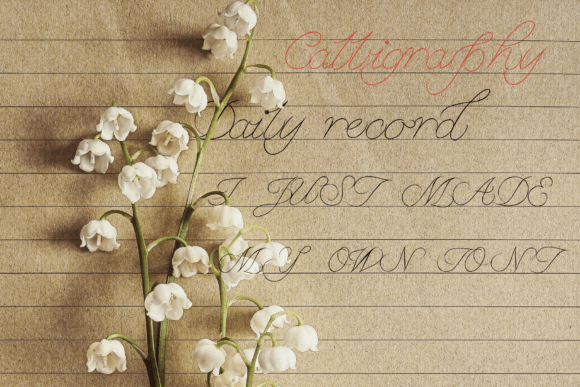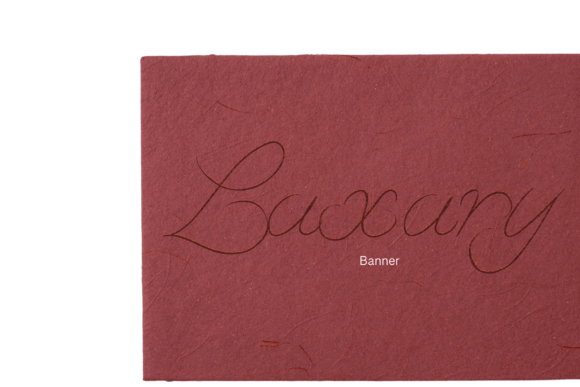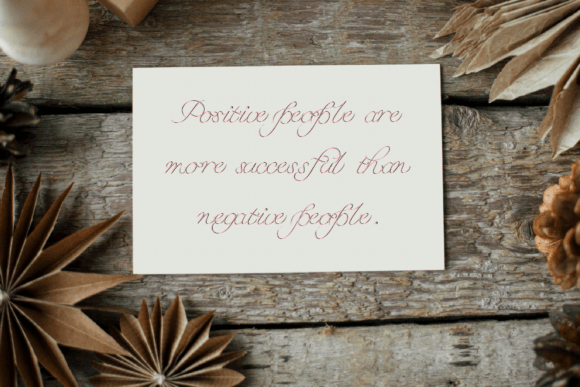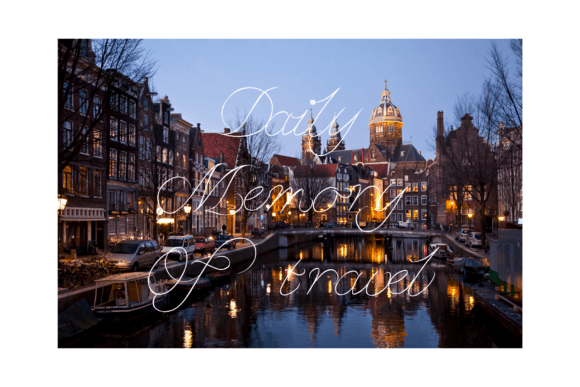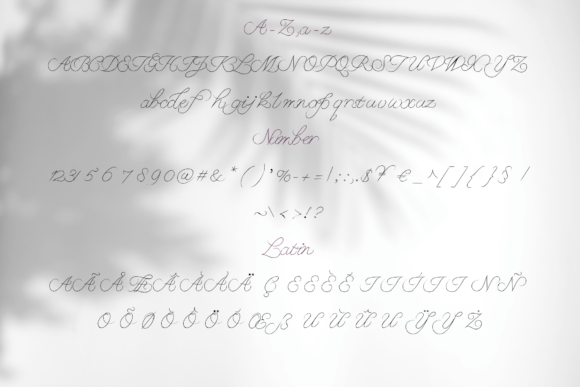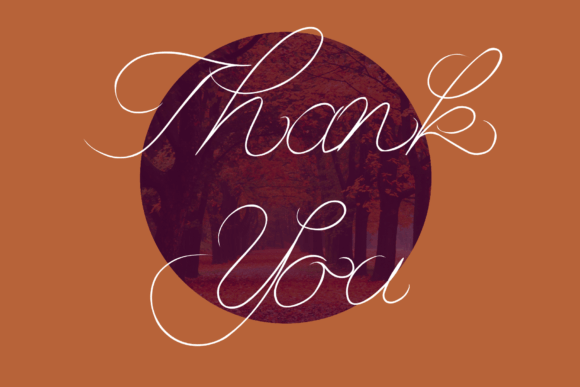
Discover the Charm of Hand Written Fonts: Elevate Your Designs with Elegance
In the world of typography, few styles evoke as much warmth and personality as the hand written font. Among these, Handwritten stands out as a flowing script that brings an elegant touch to any project. Described by its incredibly distinct and timeless style, this font is perfect for designers and crafters looking to infuse their creations with a personal and sophisticated flair.
The Allure of Hand Written Fonts
Hand written fonts, by their very nature, carry a unique charm that is hard to replicate with digital fonts. They bring a level of human touch and authenticity to a design, making it more relatable and engaging. Whether it’s a wedding invitation, a brand logo, or a decorative piece, a well-chosen hand written font can elevate the design from ordinary to extraordinary.
Introducing Handwritten: A Font of Elegance
Handwritten is not just any hand written font. It’s a carefully crafted script that exudes elegance and sophistication. Its flowing lines and delicate curves make it perfect for projects that require a touch of class and refinement. From fashion and beauty brands to event planners and artists, this font can help establish a distinctive visual identity that sets you apart.
Key Features of Handwritten Font
- Distinctive Style: The font boasts an incredibly distinct style that is both memorable and visually appealing.
- Timeless Appeal: Unlike trends that fade over time, Handwritten has a timeless quality that ensures your designs remain relevant for years to come.
- Elegant Touch: It adds an elegant touch to any project, making it suitable for high-end brands and sophisticated designs.
- Versatility: Handwritten is versatile enough to be used in a variety of projects, from digital content to print materials.
Using Handwritten Font in Your Projects
The versatility of Handwritten makes it an excellent choice for a wide range of applications. Here are a few ideas to get you started:
- Branding and Logos: Create a lasting impression with a logo that combines simplicity with elegance.
- Wedding and Event Invitations: Add a touch of romance and sophistication to your invitations and save-the-date cards.
- Packaging: Stand out on store shelves with beautifully designed packaging that reflects your brand’s personality.
- Digital Content: Enhance your website, blog, or social media graphics with a font that captures attention and conveys your message with style.
Tips for Working with Handwritten Fonts
To make the most of Handwritten or any hand written font, consider the following tips:
- Pair with Contrasting Fonts: Combine Handwritten with a simpler, sans-serif font for a balanced and harmonious look.
- Adjust Letter Spacing: Experiment with letter spacing to ensure readability and to convey the right mood.
- Consider Size and Weight: Use size and weight variations to create visual hierarchy and emphasize key messages.
Incorporating a hand written font like Handwritten into your designs can significantly enhance their appeal and effectiveness. With its elegant touch, distinctive style, and timeless appeal, Handwritten is an excellent choice for designers and crafters aiming to create spectacular designs. Whether you’re working on a branding project, an event invitation, or digital content, this font is sure to bring a level of sophistication and charm that captivates your audience.
So, fall in love with the unique style of Handwritten and let it be the perfect companion for your creative journey. Discover the difference a beautiful hand written font can make and elevate your designs to new heights of elegance and professionalism.